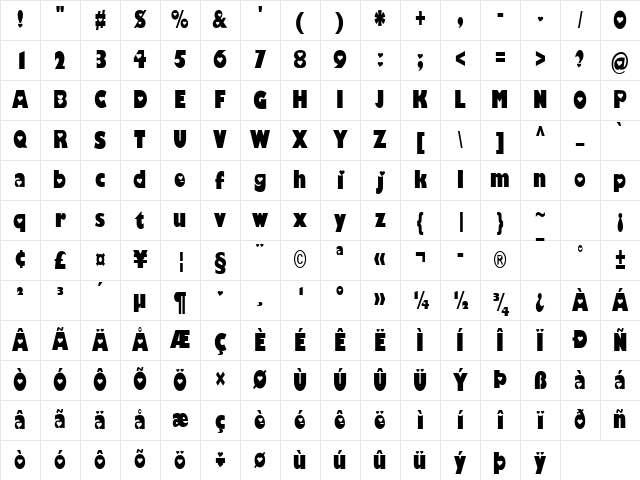
Hole-Hearted Regular Free Font
Hole-Hearted Regular
Designer: Eric Gill
Complete Hole-Hearted Regular glyph index. Displaying only characters natively supported by Hole-Hearted Regular font.
Design Context for Hole-Hearted
Hole-Hearted is a composed and adaptable typeface that performs quietly and consistently across a wide range of design contexts.